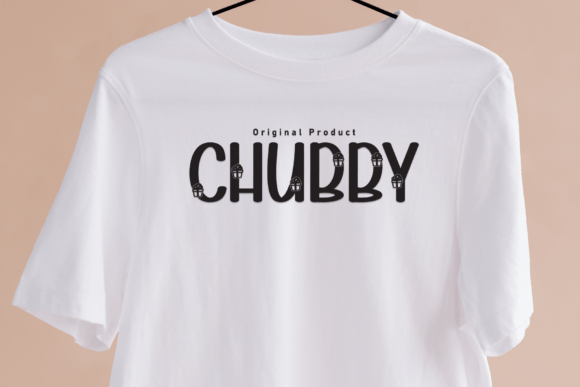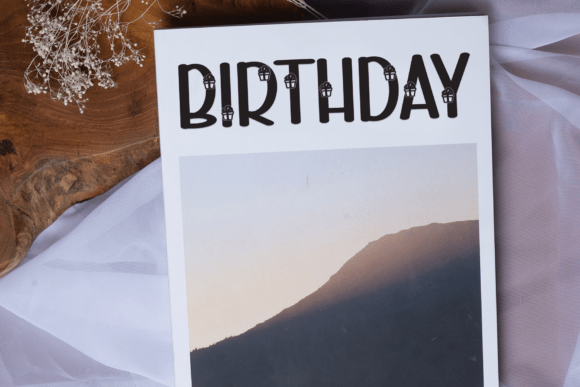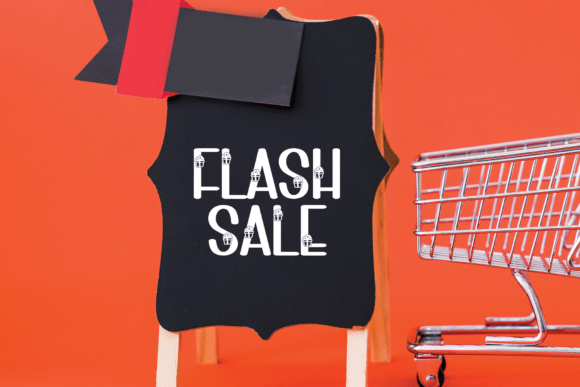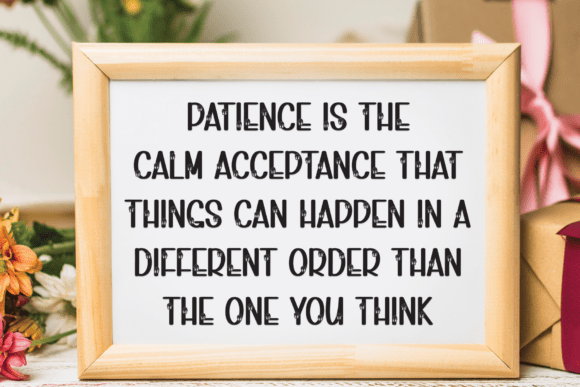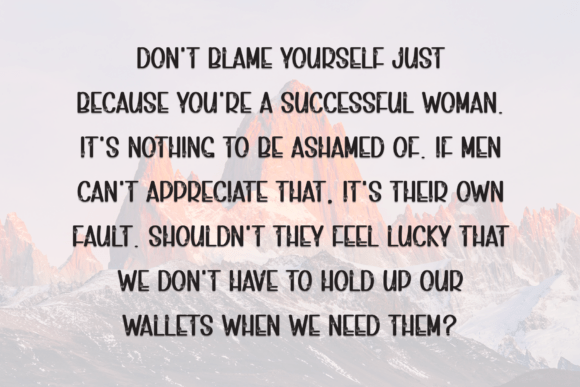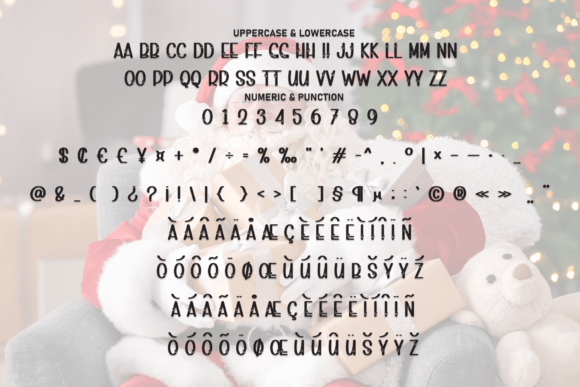
Introduction to Santa Present Font
Santa Present is a bold and authoritative display font designed with a whimsical, seasonal personality.
The typeface features thick, blocky letterforms with a stable vertical axis and consistent stroke weight Its defining creative hallmark is the inclusion of small, stylized gift box icons that are strategically placed around the characters, providing immediate thematic energy.
Key Features of Santa Present Font
Why Choose Santa Present Font?